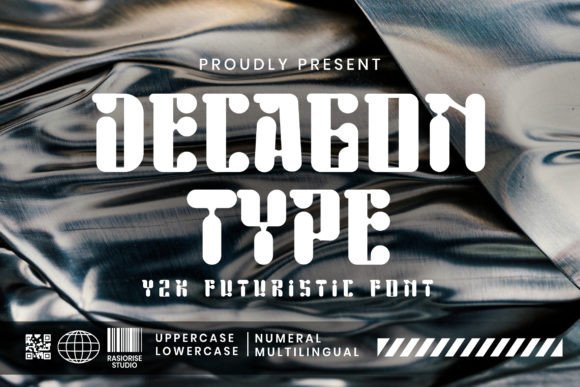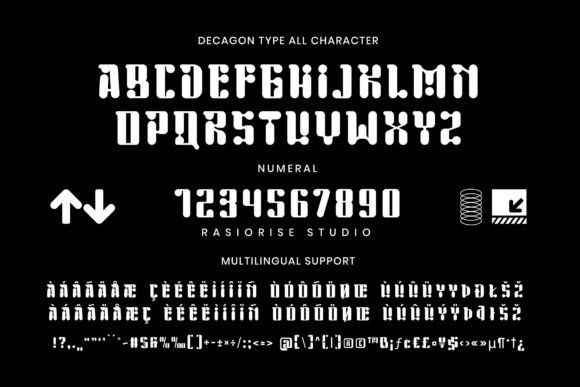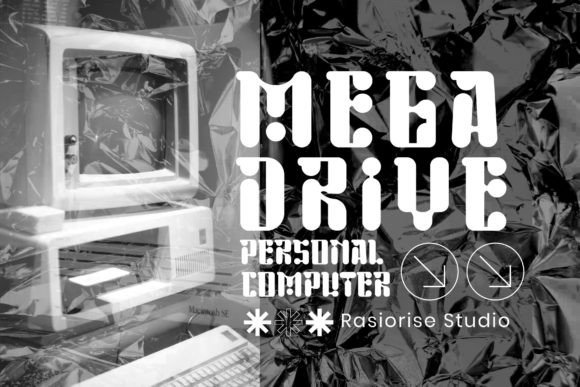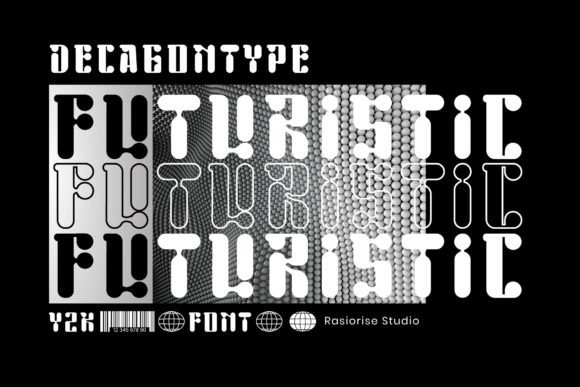
Decagon Type Font
About the Decagon Type Font
The wait is over! The incredible Decagon Type Font is now available for your design toolkit. Presenting Decagon Type – Y2K Futuristic Display Font.
The font Decagon Type is now available for people searching for a futuristic Y2K font. The Sci-Fi, Cyberpunk, Hyperbeast, and Mecha font styles and Decagon shape served as inspiration for this design.
Decagon Type excels as a display font for headlines, logos, and short, impactful text within posters and branding materials for technology companies, video games, or futuristic-themed projects. Its strong geometric forms command attention, making it unsuitable for body text or long-form content where readability is paramount. Avoid using it in user interfaces or situations requiring high levels of legibility.
The font’s core personality is bold and assertive, reflecting a modern, high-energy aesthetic. To balance this, consider pairing Decagon Type with a clean sans-serif like Montserrat for body copy or a more organic serif typeface such as Playfair Display for a contrasting yet harmonious feel.
For a more futuristic edge, a geometric sans-serif like Futura would create a cohesive, technologically advanced look. Avoid pairing it with overly decorative or script fonts, as they would clash with Decagon Type’s sharp lines.
Decagon Type Font Usage Examples
Decagon Type Font Example